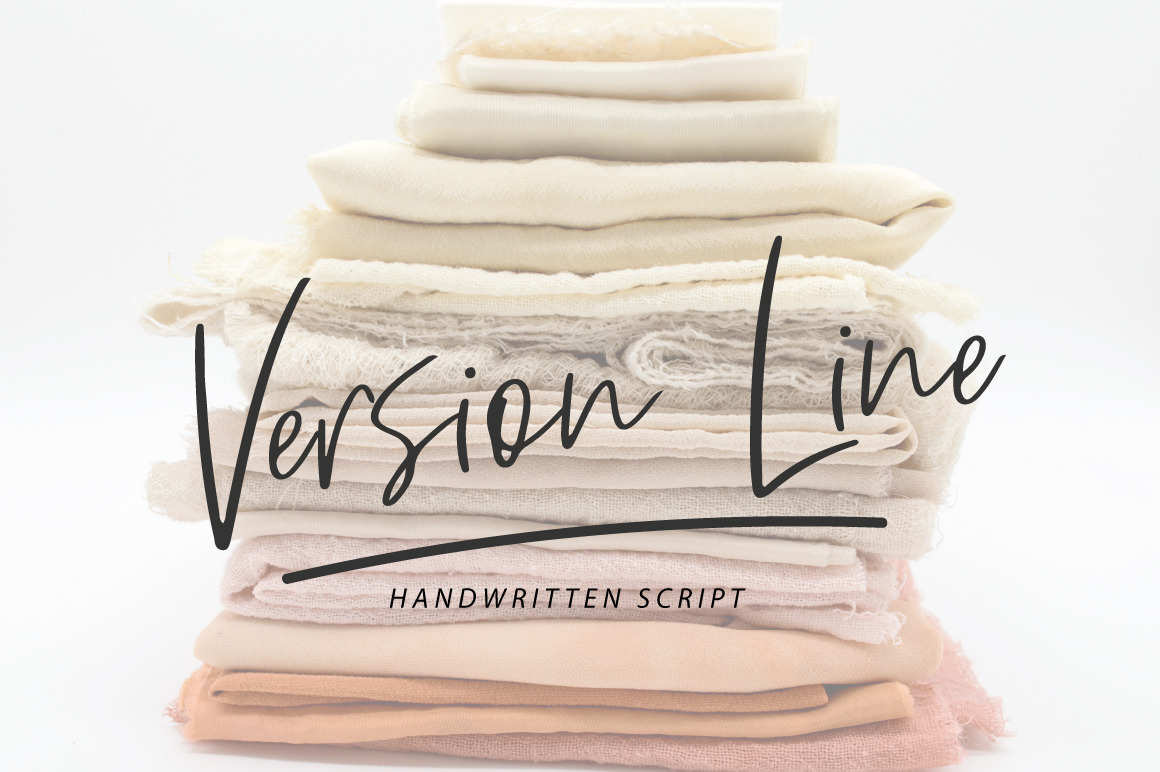
Version Line | Handwritten Font
Version Line is a Chic up script font.
Every single letter has been creative carefully and Perfectly for every project. This font is a little romantic script designed for making your set of invitations, quotes, blog posts, and more completely beautiful